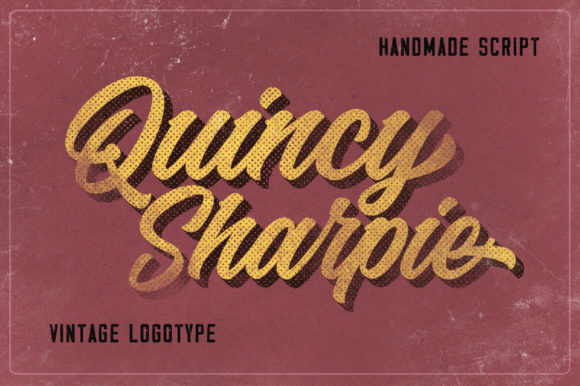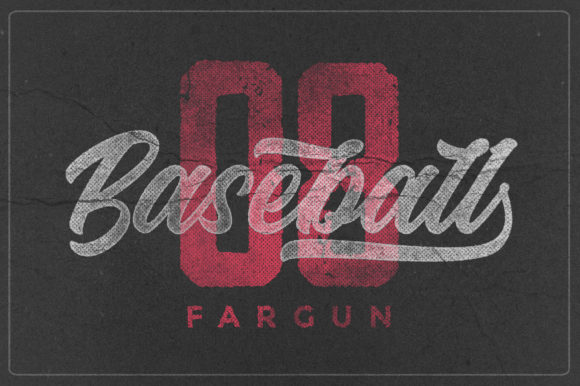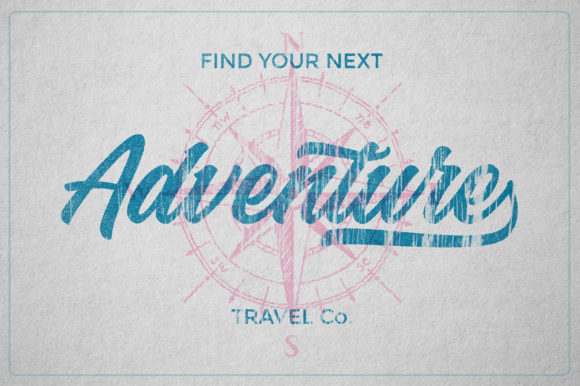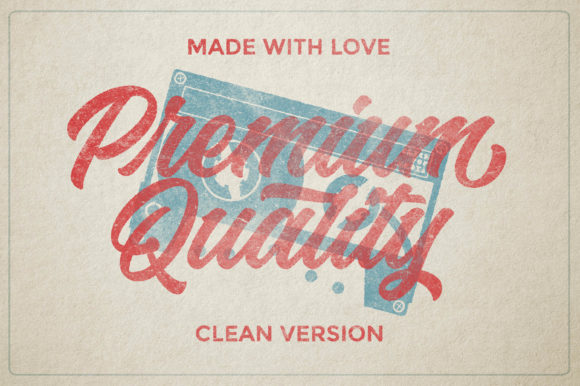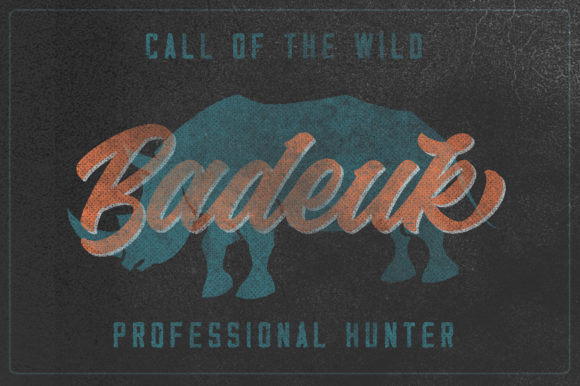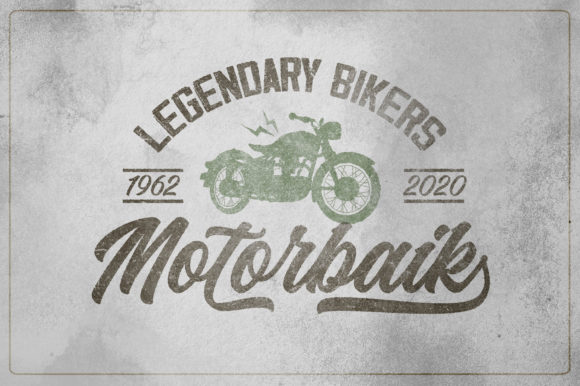
Quicken Font
About Quicken Font
Quicken is a beautiful handwritten font. It has a retro look that will brighten up any crafting project that requires a vintage look. It comes with clean versions that expands its possibilities in use.
It will elevate a wide range of design projects to the highest level, be it branding, headings, wedding designs, invitations, signatures, logos, labels, and much more!